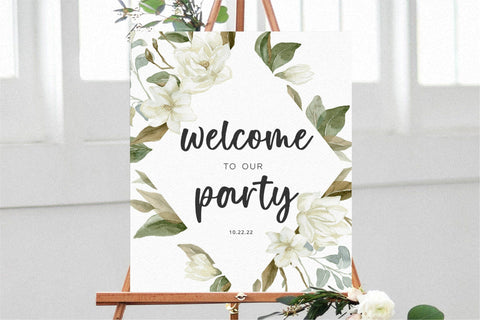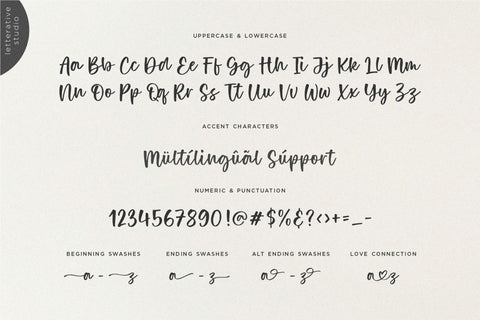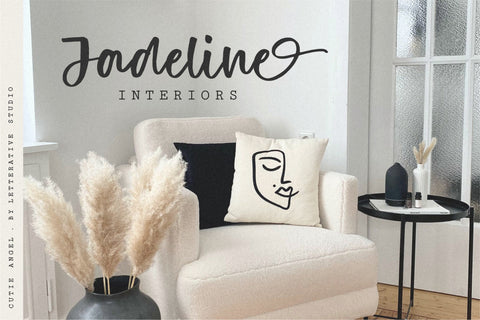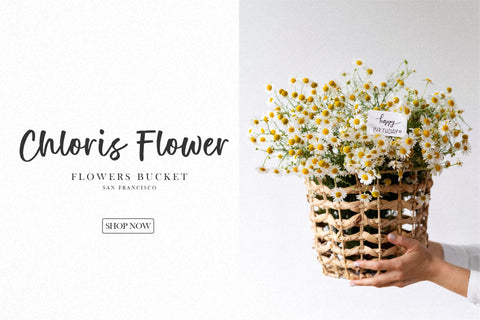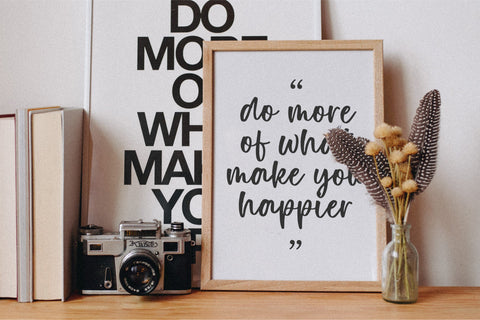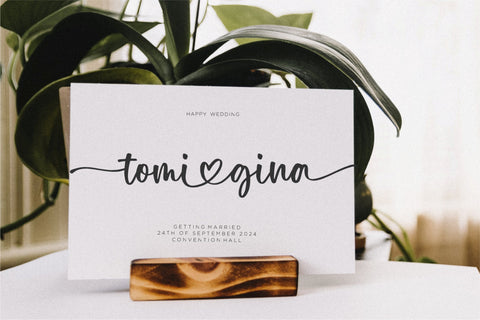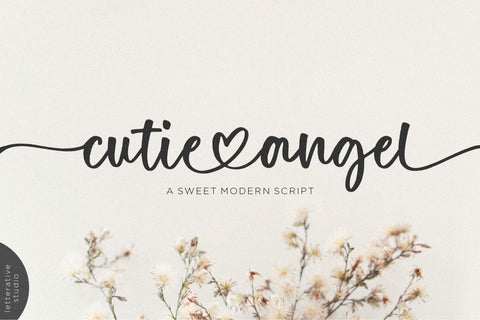
Cutie Angel Modern Handwritten Font
Introducing by Letterative Studio : Cutie Angel Font
Cutie Angel is a Modern Handwritten Font
Cutie Angel is a perfect handwritten font for product packaging, branding project, social media, wedding, or just used to express words above the background. This font is PUA encoded which means you can access all of the glyphs and swashes with ease!
- Lowercase Beginning and Ending Swash